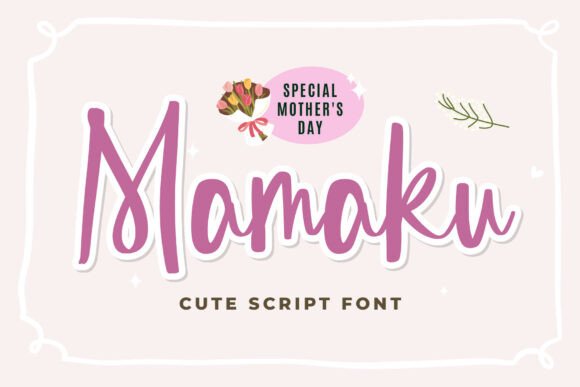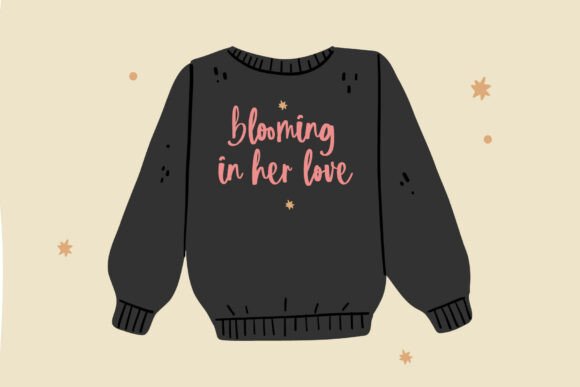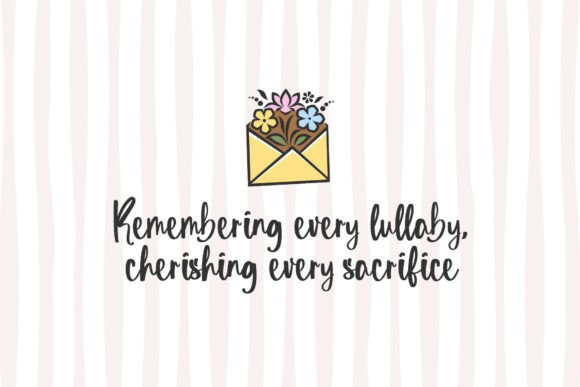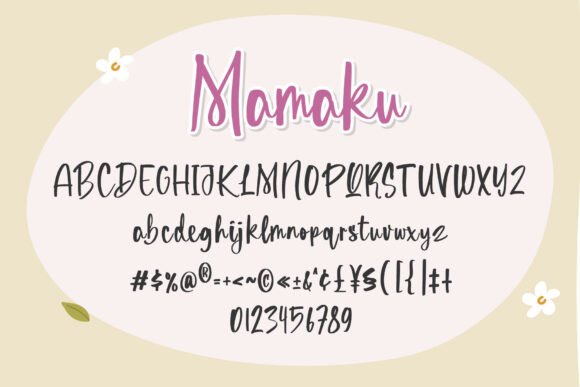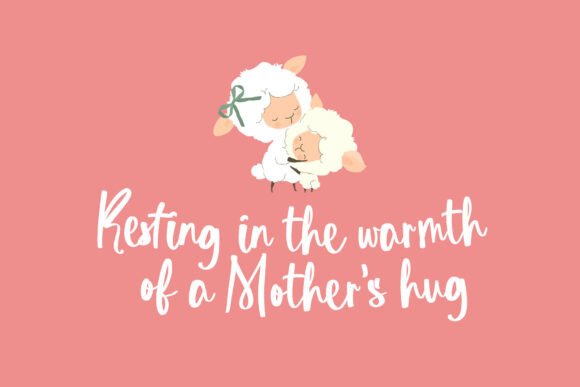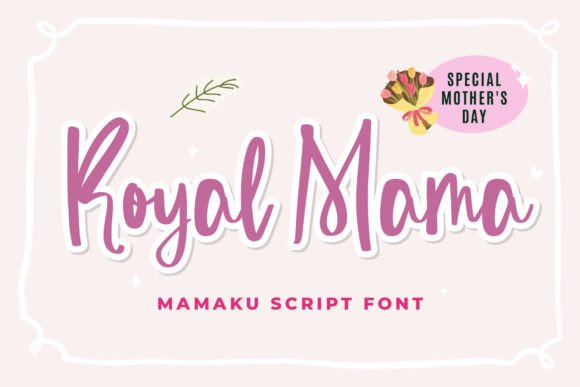
Introduction to Mamaku Font
Celebrate every moment with Mamaku, a whimsical and “cute” script font designed to bring warmth and personality to your creative projects.
With its soft, hand-drawn curves and bouncy rhythm, Mamaku captures the essence of love and handmade charm Whether you are designing for Mother’s Day, creating personalized nursery decor, or crafting custom greeting cards, this font adds a touch of sweetness that is hard to resist.